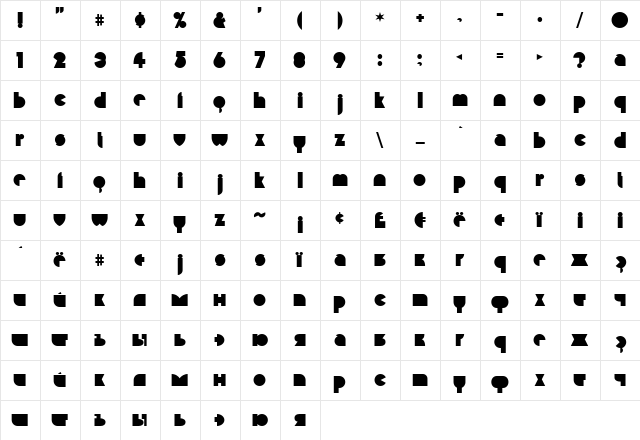
Misirlou Cyr Regular
| Designer | Ray Larabie (lat.) & Nikolay Dubina (cyr.) |
Design Context for Misirlou Cyr Typeface
Misirlou Cyr is a composed and adaptable typeface that performs quietly and consistently across a wide range of design contexts.